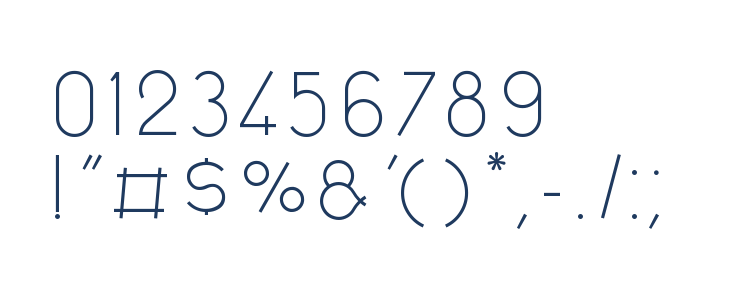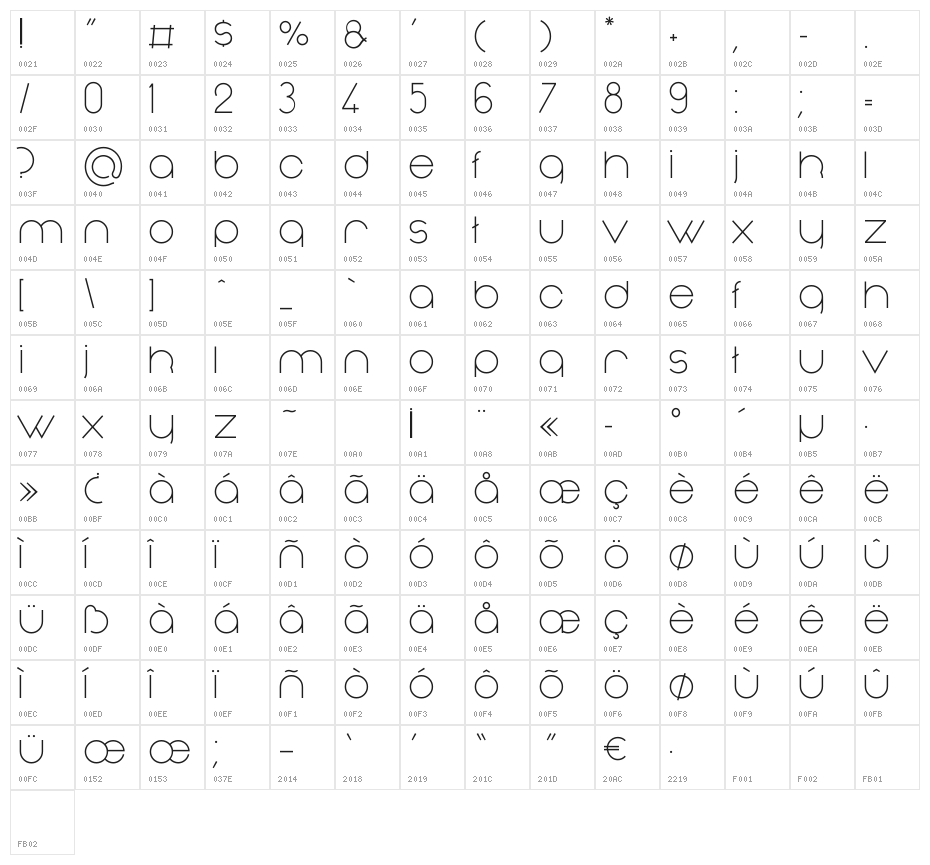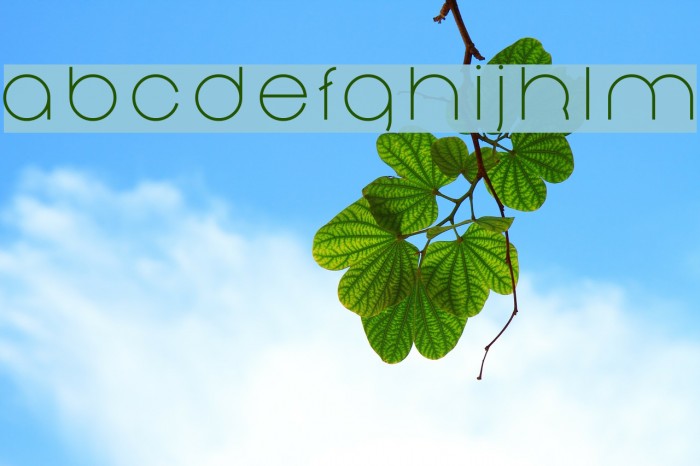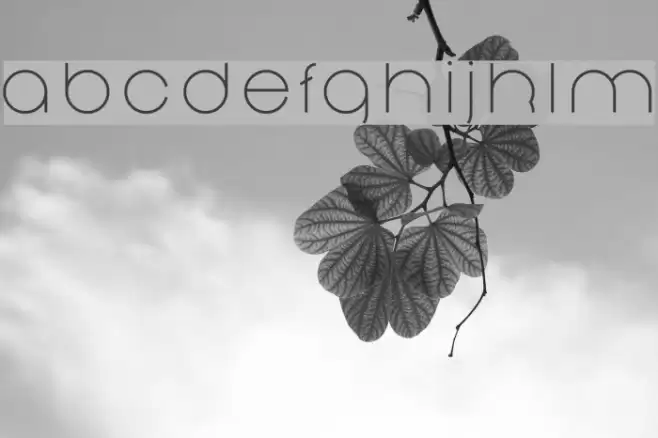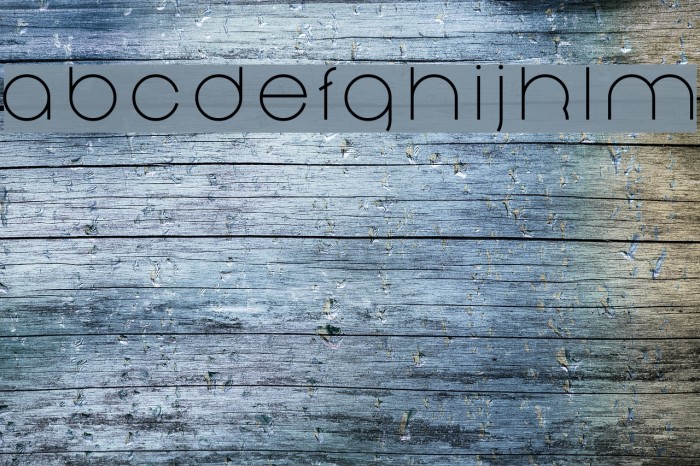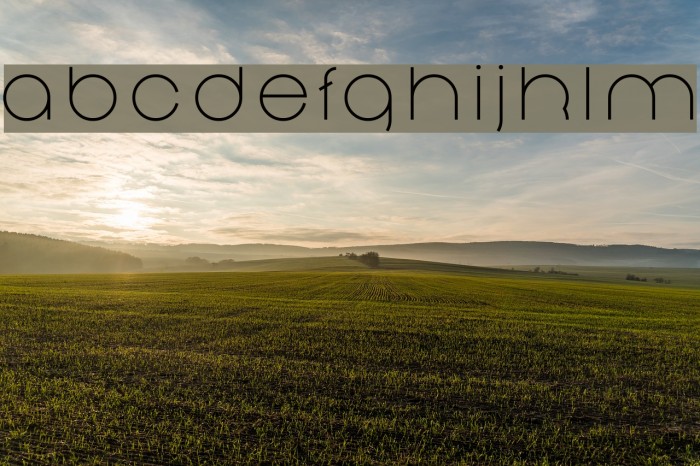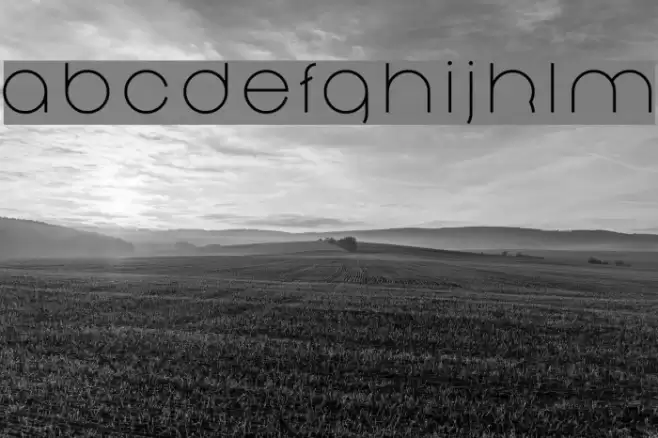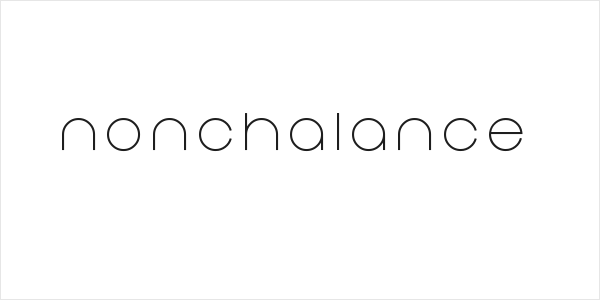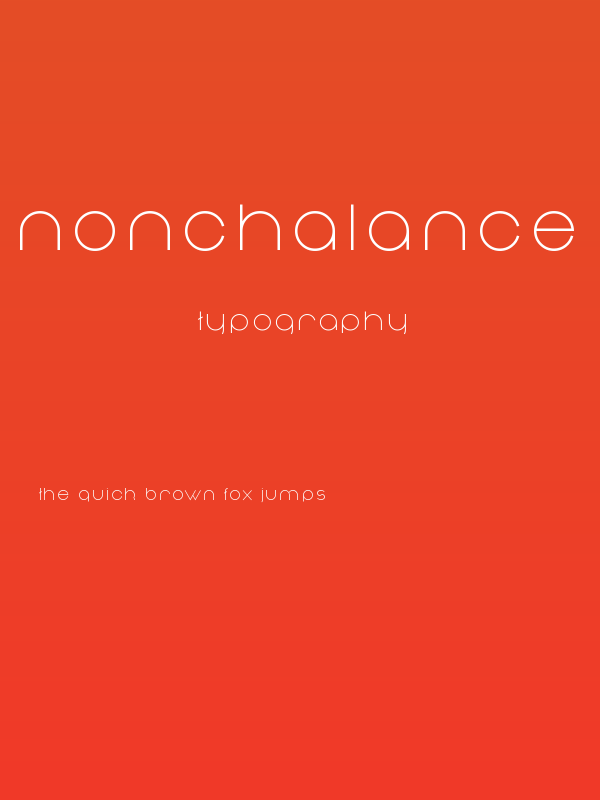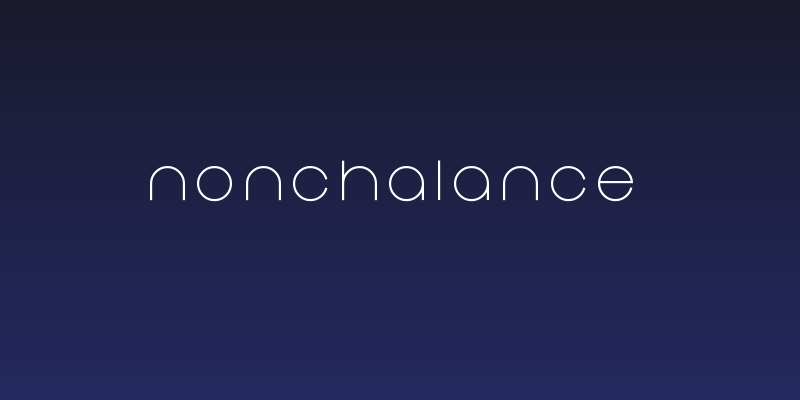
Nonchalance Font
Nonchalance Description
This font features a minimalist and modern design with clean, geometric lines. The characters are crafted with a consistent stroke width, creating a harmonious and balanced appearance. The rounded edges and open counters give it a friendly and approachable feel, while maintaining a sleek and contemporary aesthetic. The numerals and special characters are designed to complement the letters, ensuring readability and visual appeal. This font is versatile and can be used in various design contexts, offering a fresh and stylish look.
| Proposed Projects | Ideal for modern branding, digital interfaces, minimalist posters, and contemporary editorial design. |